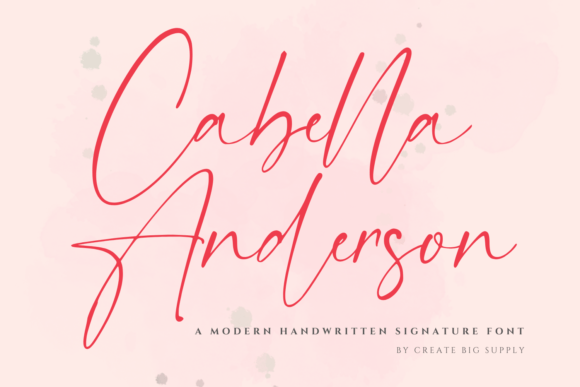
Venture into a world of elegance and sophistication with Cabella Anderson, a script font family that captures the allure of handwritten signatures. Created by the talented team at Create Big Supply, Cabella Anderson elevates your designs with its graceful curves and timeless appeal.
Immerse yourself in the beauty of Cabella Anderson's flowing strokes, meticulously crafted to mimic the artistry of a skilled penman. Each letter dances across the page, telling a story of creativity and passion. Whether you're designing a captivating logo, creating personalized branding materials, or crafting heartfelt invitations, Cabella Anderson adds a touch of magic that captivates and inspires.
Unleash your creativity and let Cabella Anderson's versatile style shine through. Its elegant lines lend themselves effortlessly to a wide range of projects, from delicate wedding invitations to bold and distinctive logos. Experiment with different sizes and combinations to discover the endless possibilities that await you.
Cabella Anderson is more than just a font; it's an expression of your individuality and style. Its unique character adds a layer of depth and intrigue to your designs, setting them apart from the ordinary. Dare to be different and let Cabella Anderson elevate your projects to new heights of sophistication.
Embrace the essence of handwritten elegance with Cabella Anderson and embark on a creative journey that will leave a lasting impression. Its timeless beauty transcends trends, making it a font that will continue to inspire and captivate for years to come.